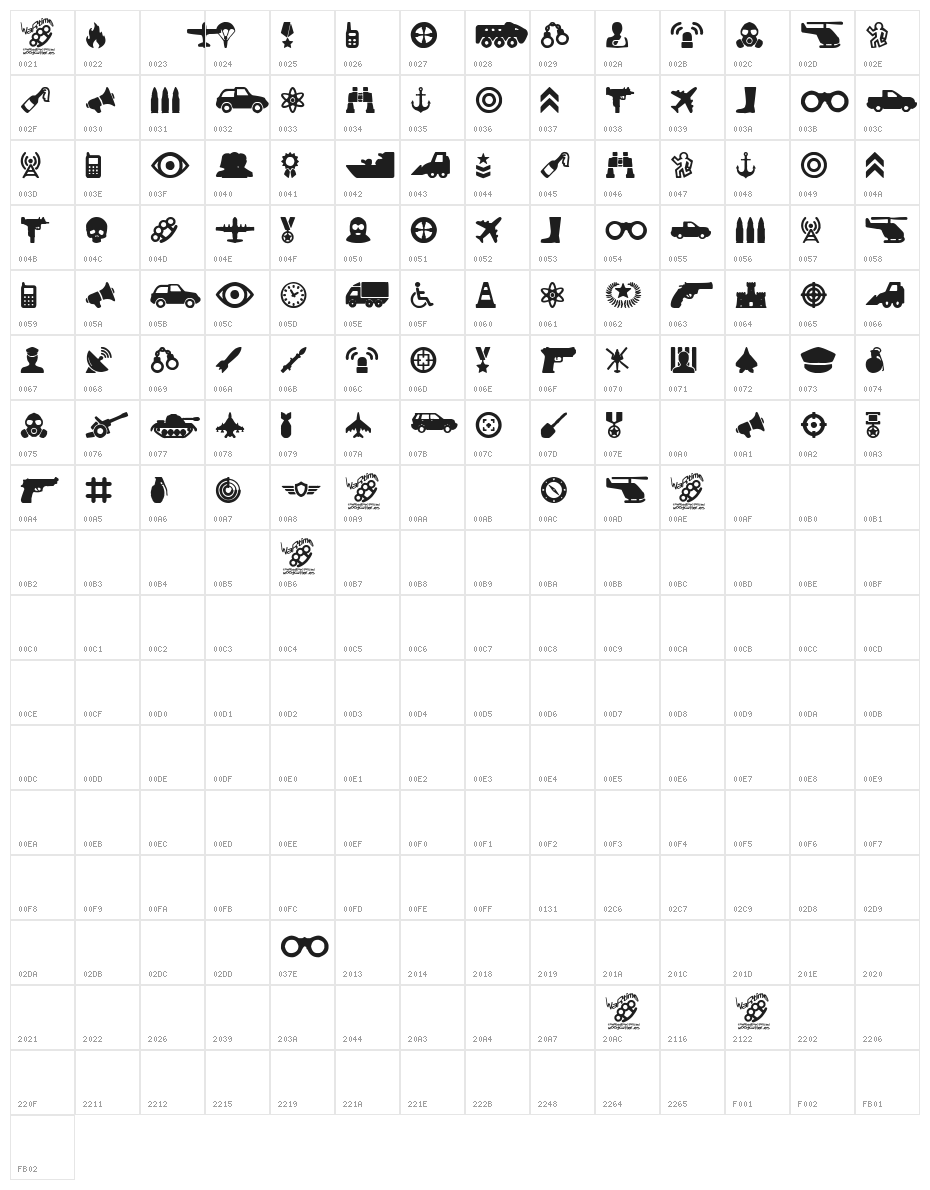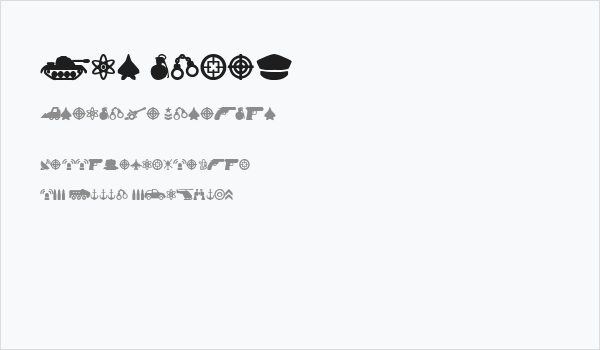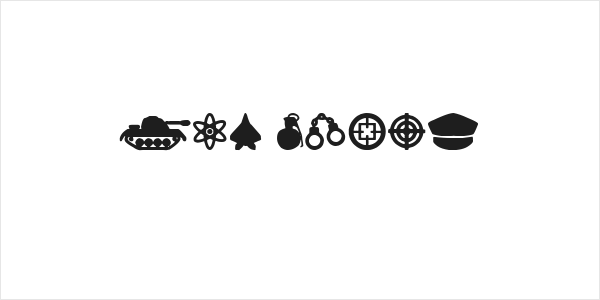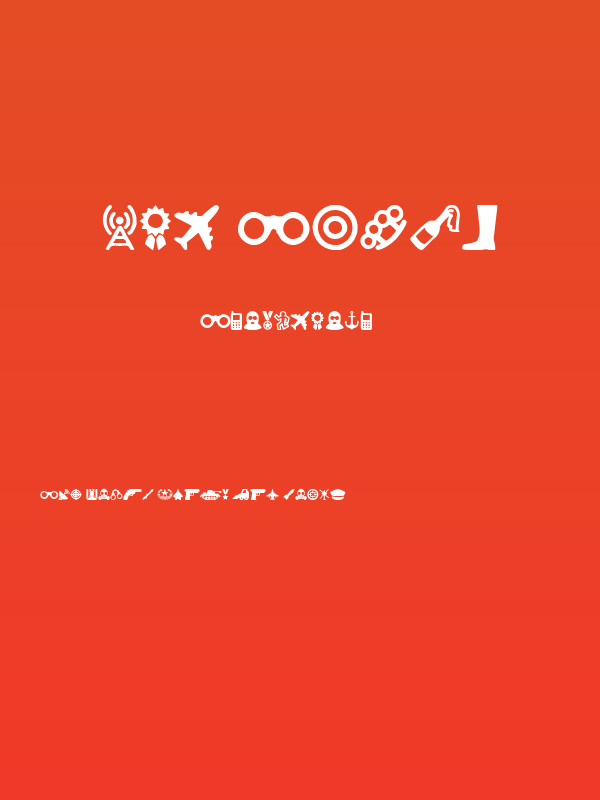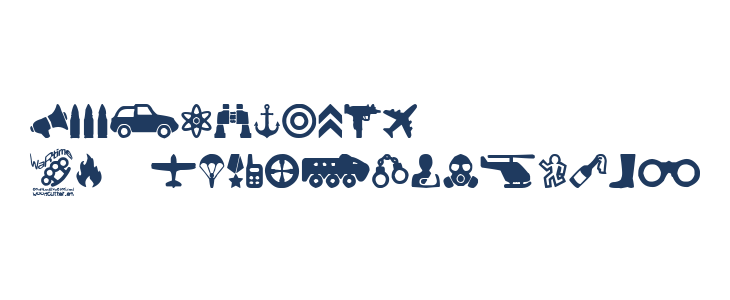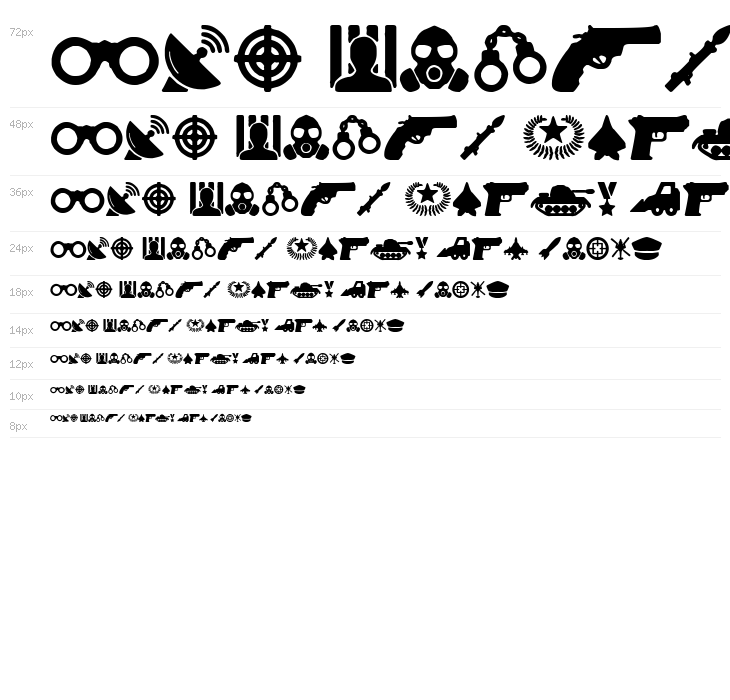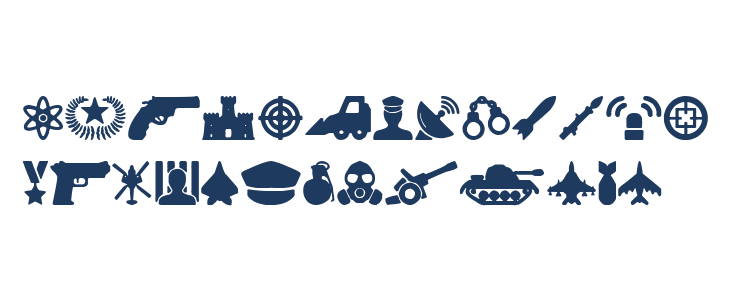
war times Font
war times Description
This is a collection of military-themed icons rather than a traditional font. The set includes various symbols such as tanks, airplanes, weapons, and other war-related imagery. Each icon is bold and distinct, designed to convey a sense of strength and power. The icons are uniformly black, providing a stark contrast against lighter backgrounds, making them easily recognizable. The style is consistent throughout, with each symbol maintaining a similar weight and size, ensuring visual harmony when used together. This collection is ideal for projects requiring a military or tactical aesthetic, offering a wide range of symbols to represent different aspects of warfare and defense.
| Use Case | Logos, Icons, Themed Designs |
| Proposed Projects | Ideal for military-themed designs, video game interfaces, educational materials on warfare, or tactical gear branding. |